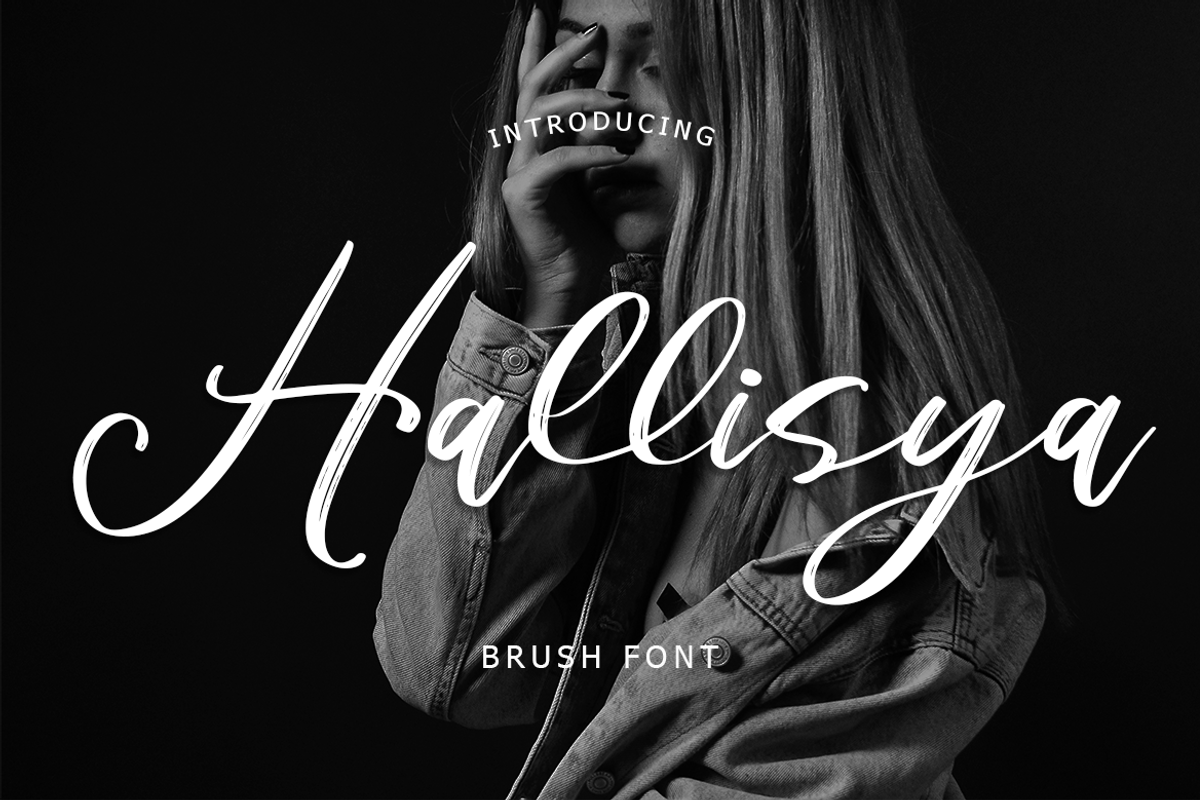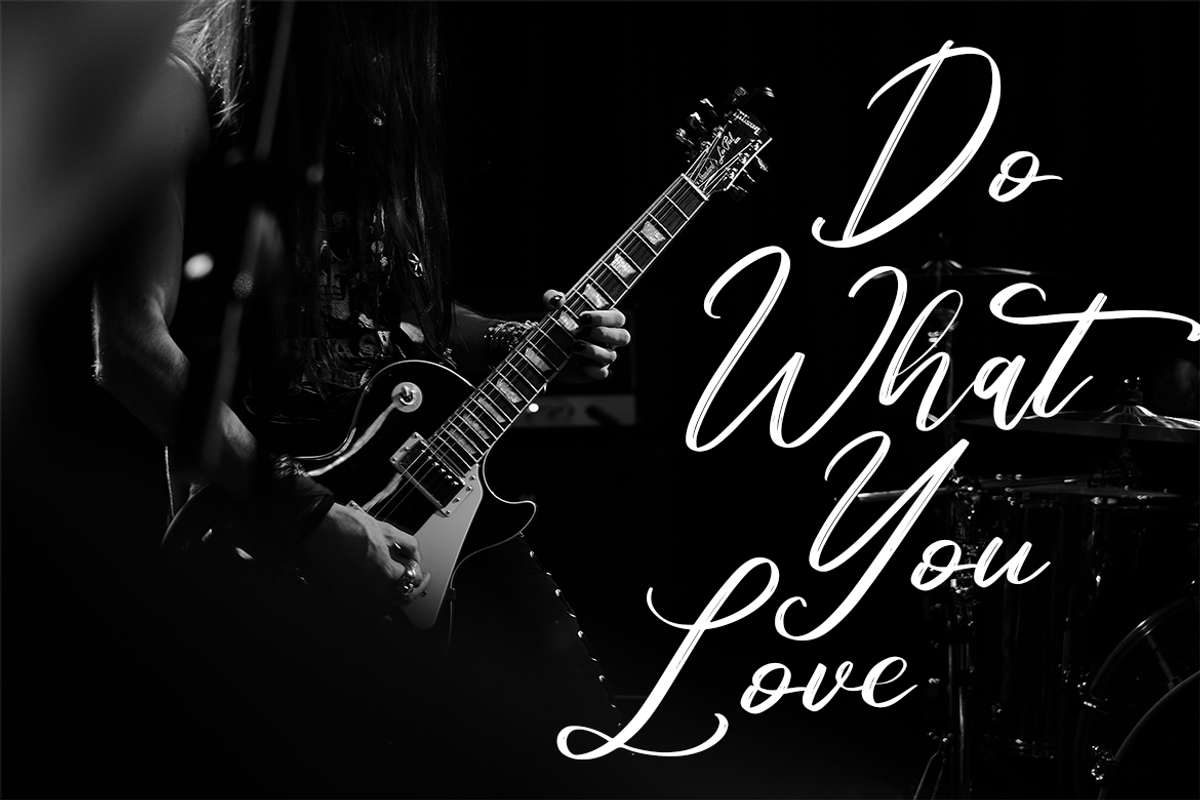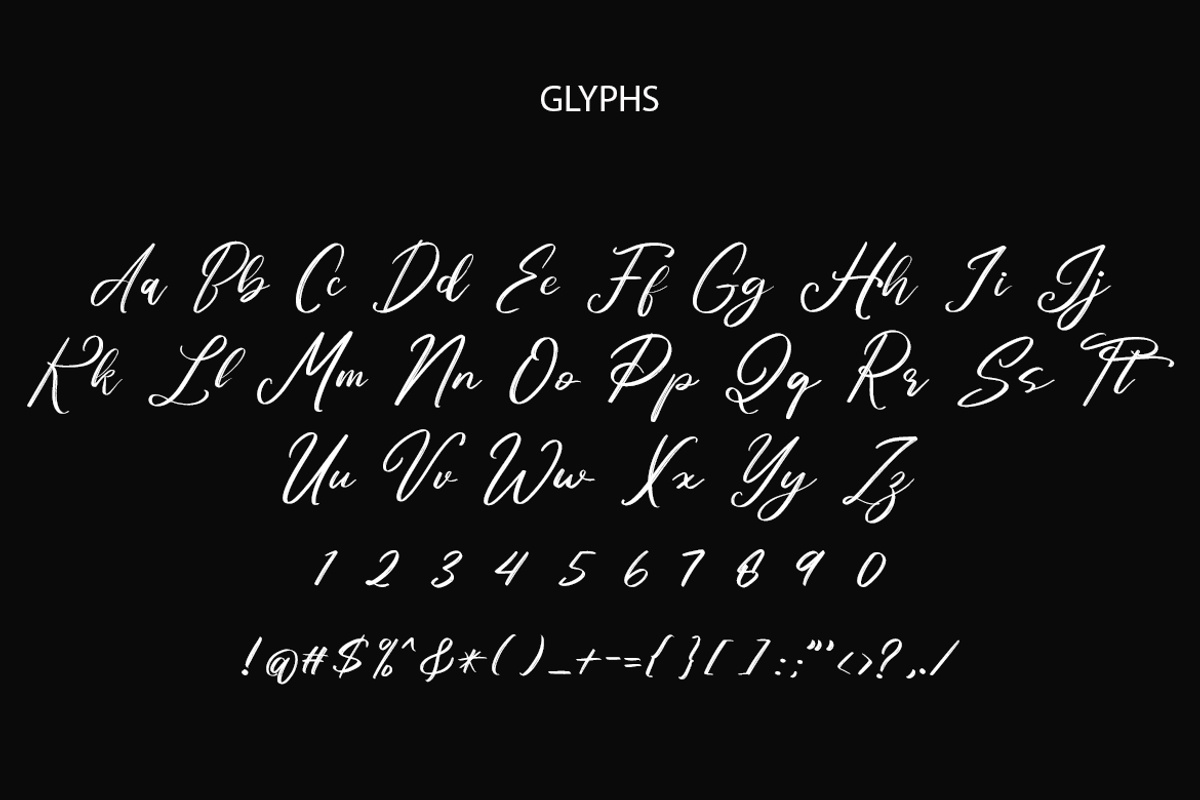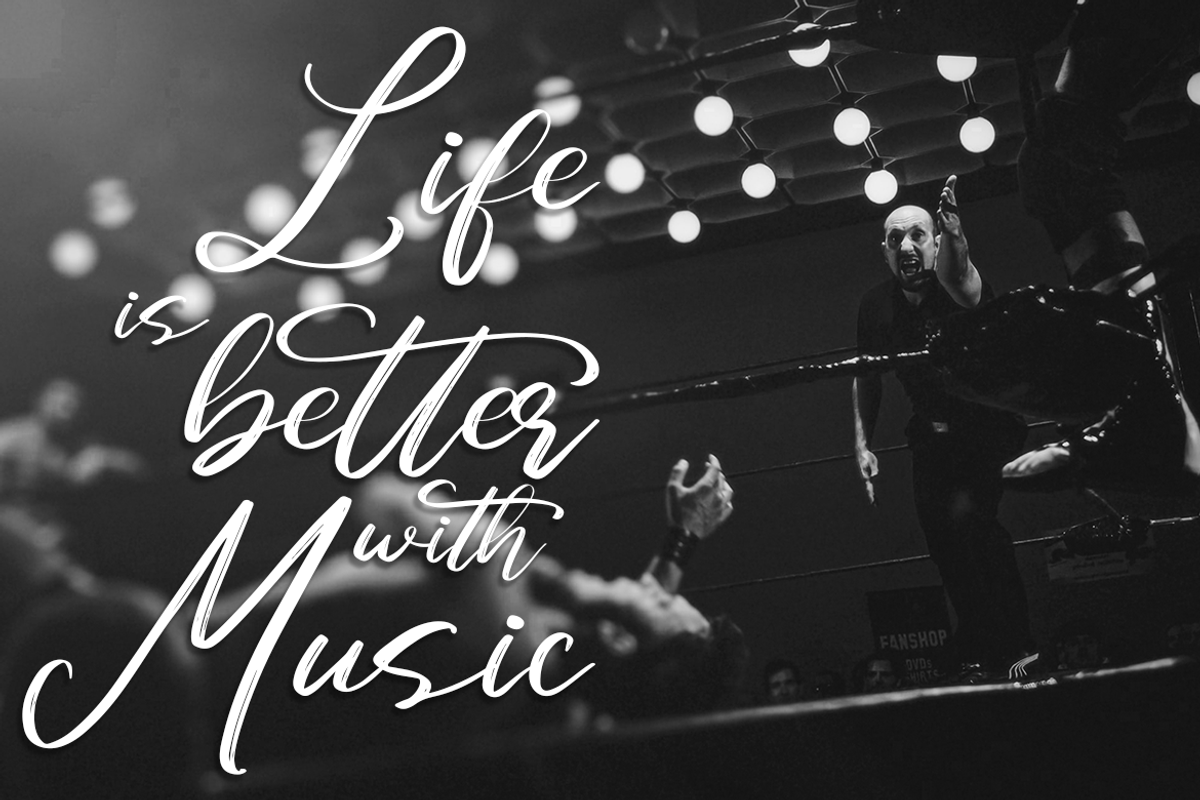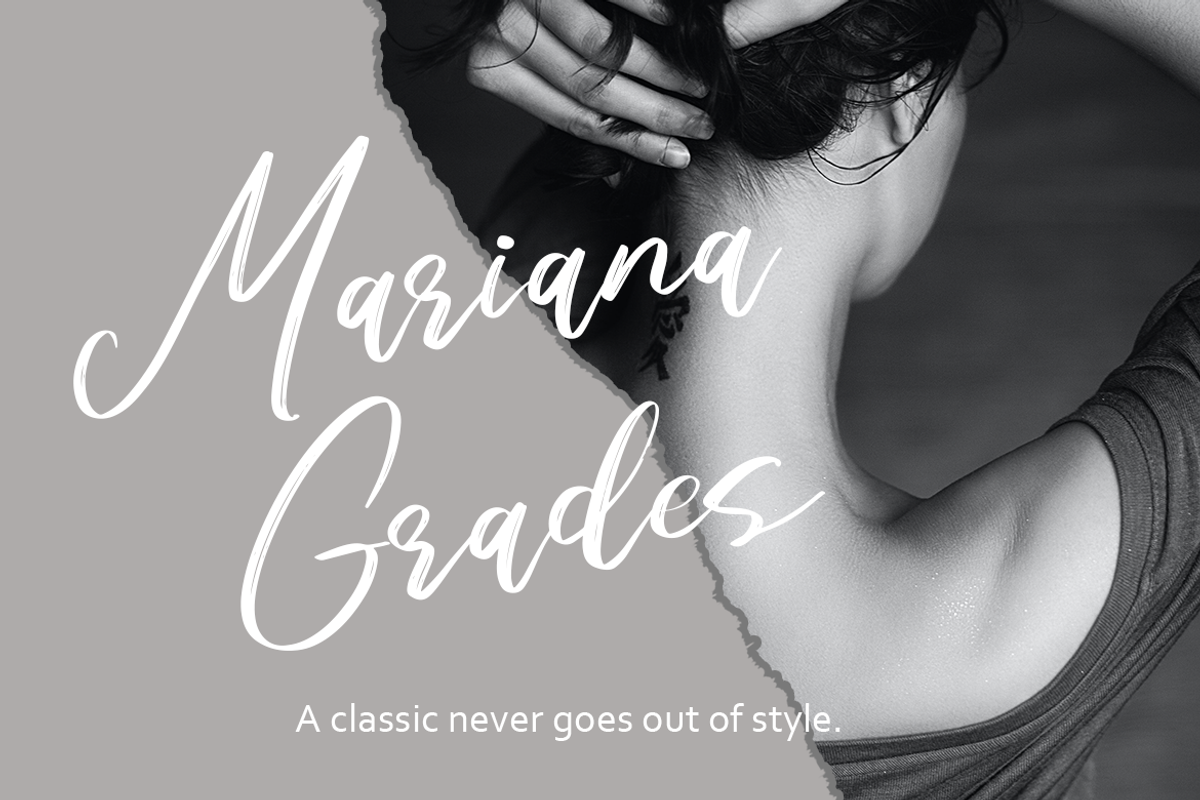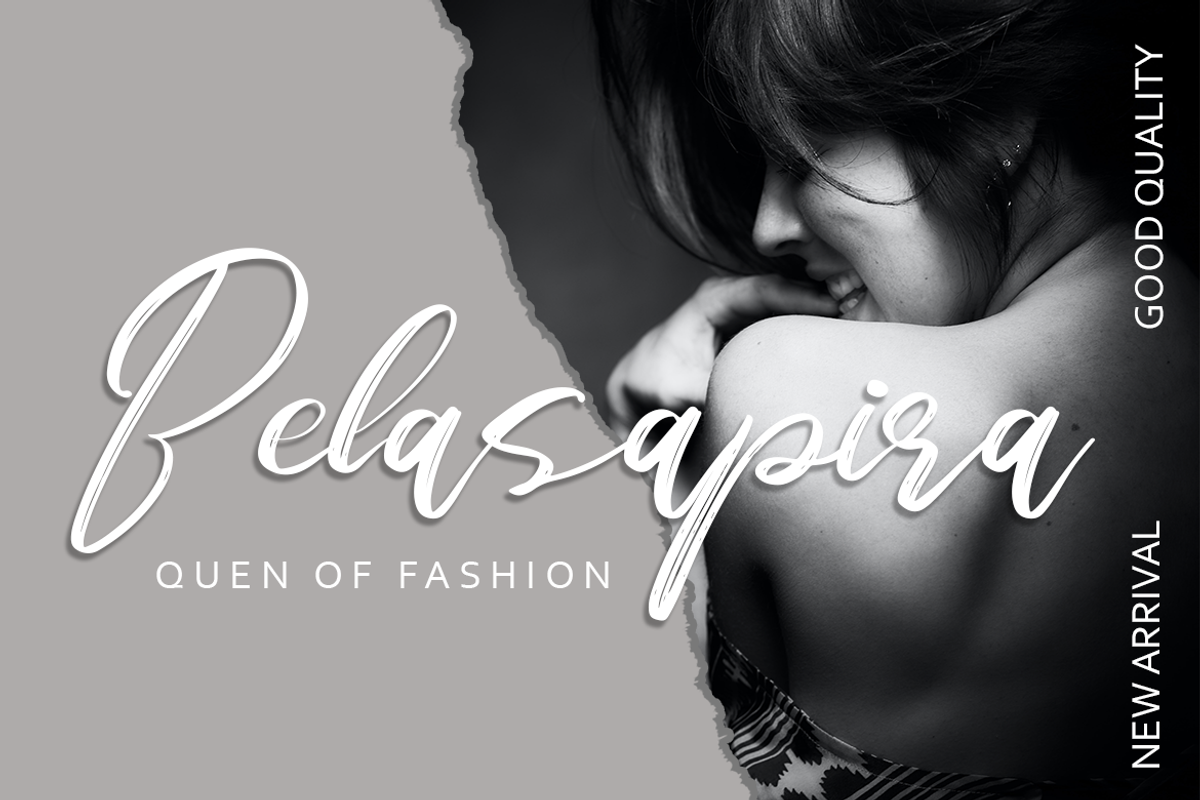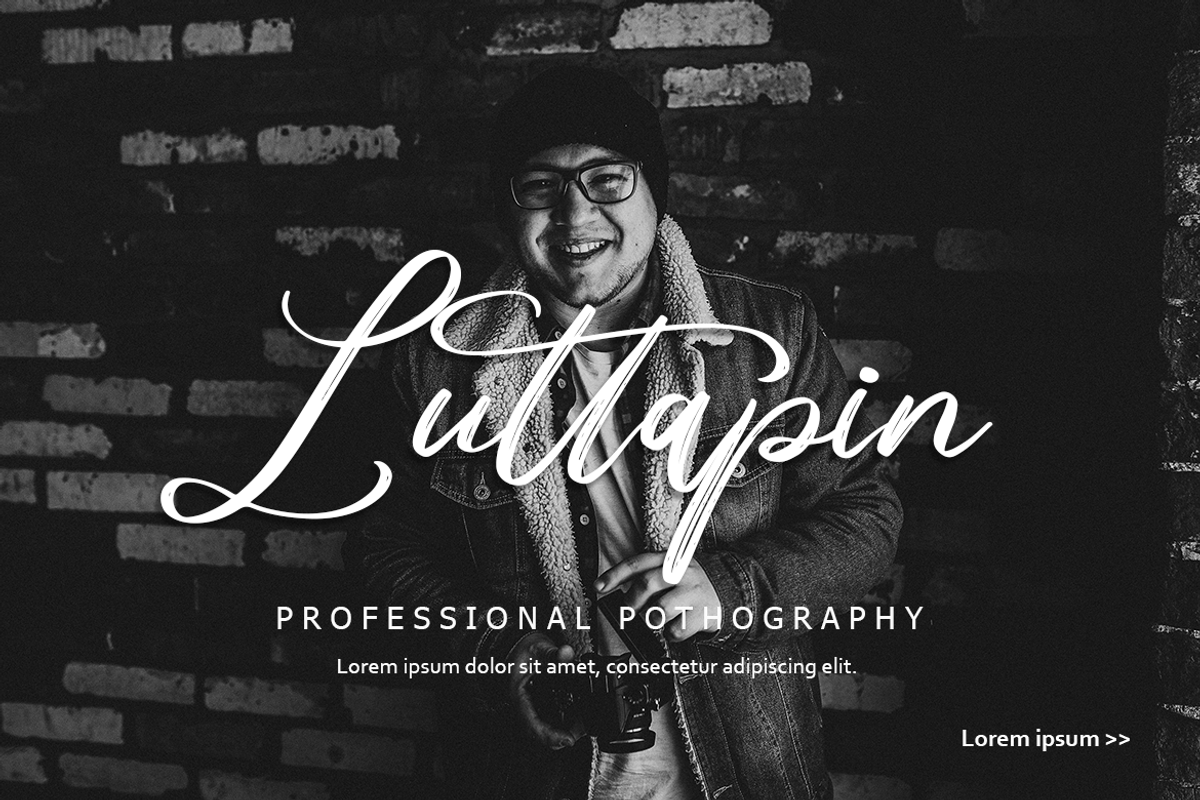
Hallisya Brush Font
Hallisya is a beautiful brush font can make your text appear elegant, luxurious, and modern!
Hallisya is perfect for branding projects, logo, wedding designs, social media posts, advertisements, product packaging, tshirt design, product designs, label, photography, watermark, invitation, stationery and any projects.